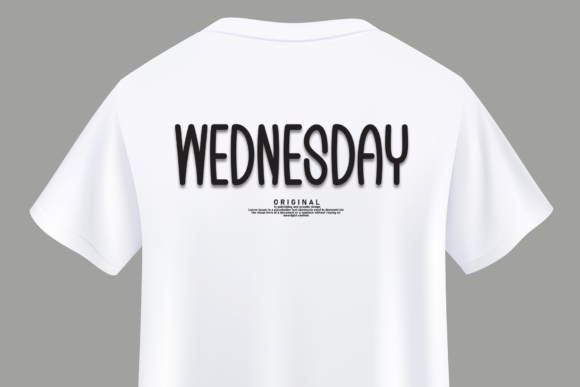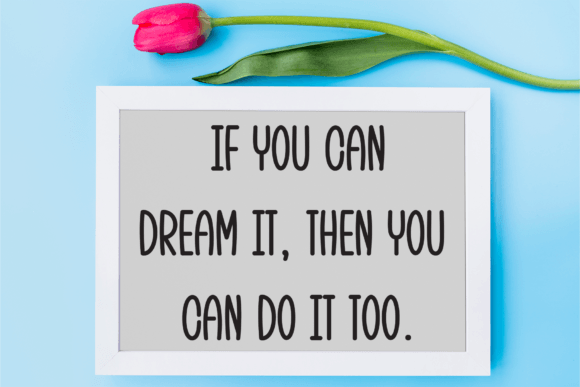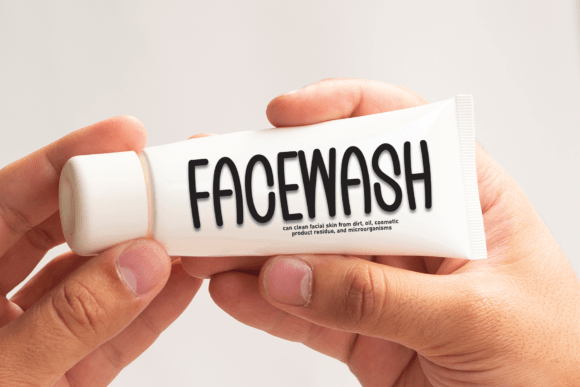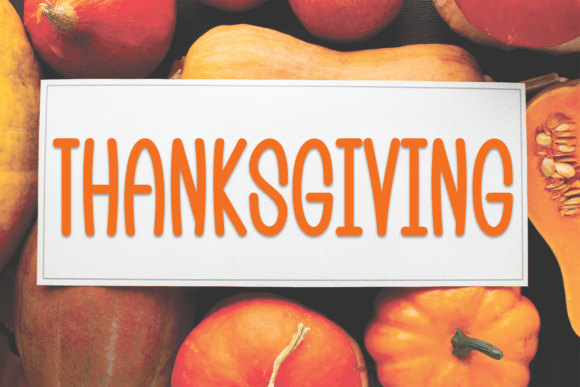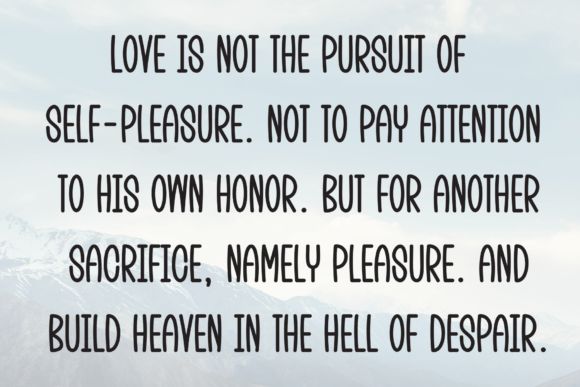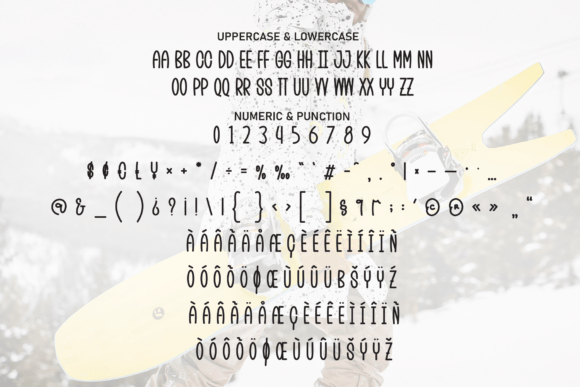
Introducing Christmas Snowboard Font: The Perfect Addition to Your Design Projects
Are you looking for a font that can add a touch of warmth and authenticity to your design projects? Look no further than the Christmas Snowboard Font. This casual handwritten font is designed to capture a relaxed and friendly vibe, making it perfect for a variety of applications, from personal projects to social media and invitations.
What Makes Christmas Snowboard Font So Special?
Christmas Snowboard Font is a unique and charming font that stands out from the crowd. Its natural, flowing strokes give it an effortless and charming touch that is sure to delight. The font’s easygoing style adds warmth and authenticity to any design, making it perfect for designers and crafters who want to create something truly special.
Key Features of Christmas Snowboard Font
- Casual Handwritten Style: Christmas Snowboard Font has a casual, handwritten style that is perfect for creating a relaxed and friendly vibe.
- Natural Flowing Strokes: The font’s natural, flowing strokes give it a charming and effortless touch.
- Easygoing Style: The font’s easygoing style adds warmth and authenticity to any design.
- Perfect for Personal Projects: Christmas Snowboard Font is ideal for personal projects, such as scrapbooking, journaling, and crafting.
- Great for Social Media: The font is also perfect for social media, where you can use it to create eye-catching posts and stories.
- Suitable for Invitations: Christmas Snowboard Font is a great choice for invitations, such as birthday parties, weddings, and holiday gatherings.
How to Use Christmas Snowboard Font in Your Design Projects
Christmas Snowboard Font is easy to use and can be incorporated into a variety of design projects. Here are a few ideas to get you started:
- Scrapbooking: Use Christmas Snowboard Font to add a personal touch to your scrapbook pages.
- Journaling: The font is perfect for journaling, where you can use it to add a touch of warmth and authenticity to your entries.
- Crafting: Christmas Snowboard Font is great for crafting, where you can use it to create personalized gifts and decorations.
- Social Media: Use the font to create eye-catching social media posts and stories.
- Invitations: The font is perfect for creating personalized invitations for special occasions.
Tips for Getting the Most Out of Christmas Snowboard Font
Here are a few tips for getting the most out of Christmas Snowboard Font:
- Experiment with Different Sizes: Try out different font sizes to see how Christmas Snowboard Font looks in different contexts.
- Pair it with Other Fonts: Experiment with pairing Christmas Snowboard Font with other fonts to create a unique and interesting look.
- Use it for Headings and Titles: The font is perfect for headings and titles, where you can use it to add a touch of warmth and authenticity.
- Add it to Your Design Toolkit: Make sure to add Christmas Snowboard Font to your design toolkit, where you can easily access it for future projects.
Christmas Snowboard Font is a unique and charming font that is perfect for designers and crafters who want to add a touch of warmth and authenticity to their design projects. With its casual handwritten style, natural flowing strokes, and easygoing style, it’s ideal for a variety of applications, from personal projects to social media and invitations. So why wait? Download Christmas Snowboard Font today and start adding a touch of charm to your designs!